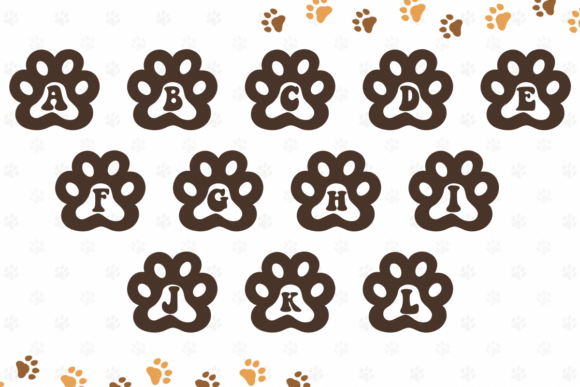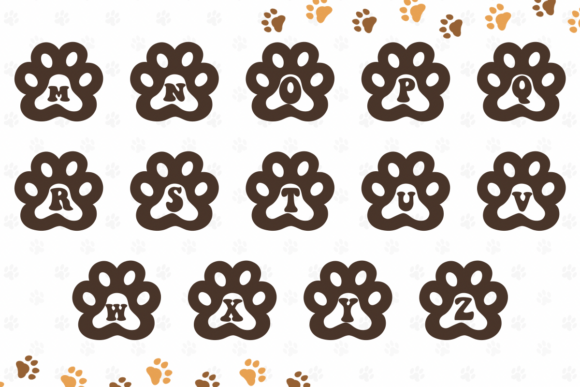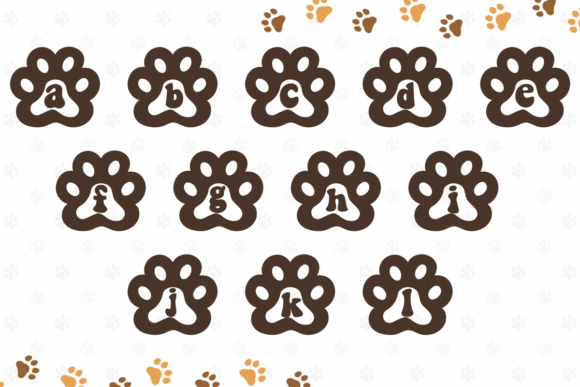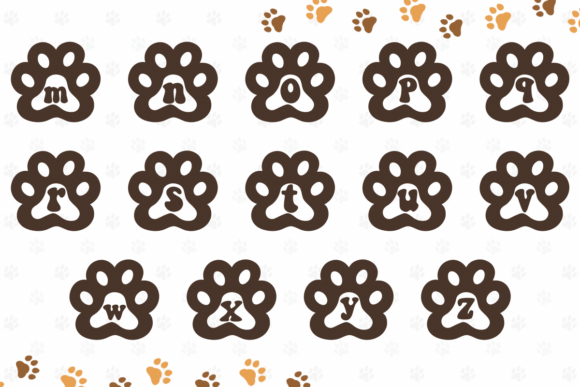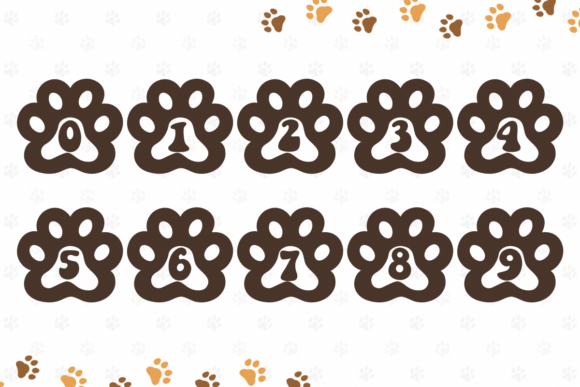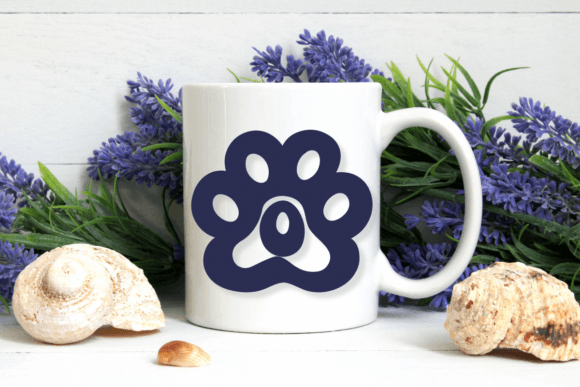
Getting Creative with Cat Paw Font
Who hasn’t found themselves scribbling notes in a journal or doodling on a sticky note in the middle of a brainstorming session? For many creatives, the spark of inspiration often starts with a simple, yet endearing gesture. And for those who love cats, the Cat Paw Font is a delightful way to capture that moment of inspiration and make it even more special.
Designed to evoke the playful, whimsical nature of felines, Cat Paw Font is a charming decorative font that’s perfect for adding a personal touch to various designs. Whether you’re writing a heartfelt letter, creating a birthday card, or crafting a social media post, this font brings a sense of warmth and friendliness to your work. For designers, the Cat Paw Font offers a valuable asset – a unique and engaging element that can elevate any project and leave a lasting impression.
Cat Paw Font Key Features
- Unique Characteristics: The Cat Paw Font features a unique, hand-drawn design with intricate details, making it perfect for creating whimsical and playful designs.
- Script and Language Support: The font supports a wide range of languages, including Latin, Cyrillic, and Greek scripts, making it a versatile option for designers.
Designer Review: Cat Paw Font
Overall, I was quite excited to dive into the Cat Paw Font. As a designer, I appreciate unique and quirky fonts that can add some personality to a project. ✨ The font’s playful, hand-drawn feel immediately caught my attention, and I can see it being perfect for a children’s book, pet-related business, or even a fun social media campaign.
Some of the things that work well for the Cat Paw Font include:
- ✨ Unique character set with a variety of quirky and cute characters
- ✨ Well-spaced and clear for easy reading
- ✨ Supports a range of languages, making it versatile for global projects
- ⚠️ Limited font sizes available, which may limit its use in certain contexts
- ⚠️ Some characters may not be as well-designed as others, which could affect the overall aesthetic
- ⚠️ Not as customizable as other fonts, which may make it less suitable for complex branding projects
Overall, I think the Cat Paw Font is a great choice for the right project. While it may have some limitations, its unique charm and playful feel make it a great addition to any designer’s toolkit.
Use the Cat Paw Font to add a whimsical touch to your designs, especially for pet-related or children’s content.
Combine the font with cute graphics and illustrations for a cohesive look.
Cat Paw Font is ideal for:
Cat-themed designs and merchandise.
Children’s book covers and illustrations.
Pet-related social media posts and graphics.